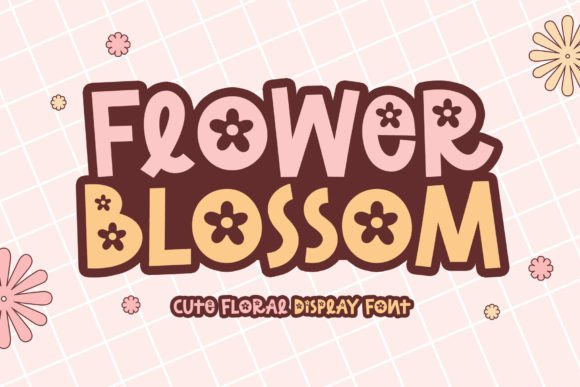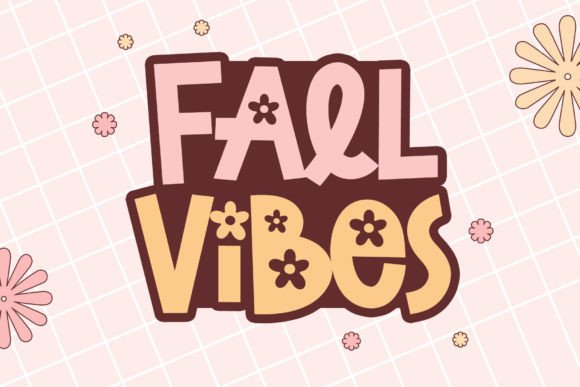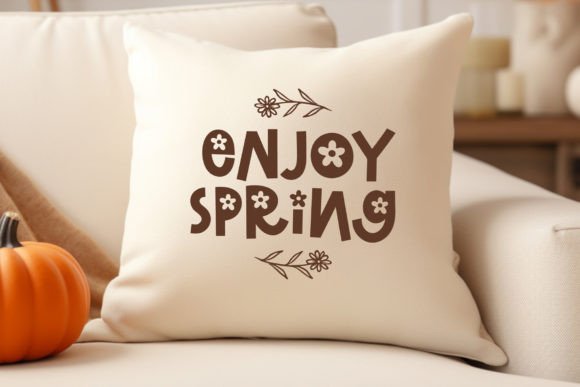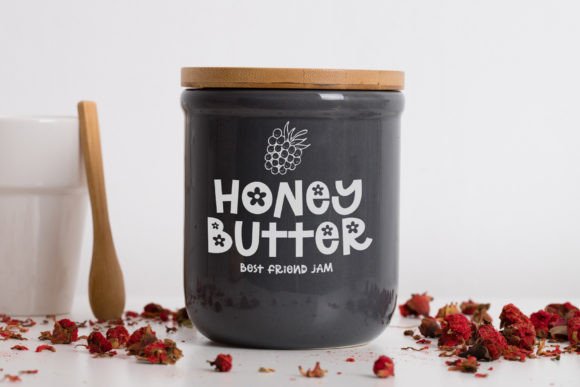
Flower Blossom Font: A Cute Floral Display Font for Cricut & DIY
About the Flower Blossom Font
Welcome to the world of Flower Blossom Font, a typeface that will inspire your next great project. Flower Blossom is pretty display font with floral accent.
This font is pretty font for design with cute style, such as holiday, summer, fall vibes, back to school, t-shirt design, crafting, sticker, and many more.
Flower Blossom’s playful, slightly whimsical personality makes it ideal for headlines, short bursts of text in branding materials, packaging for products targeting a young or female demographic, and social media graphics. It excels in projects that need a touch of charming femininity and are visually lighthearted. Avoid using it for body text or lengthy paragraphs; its decorative nature reduces readability at smaller sizes.
Consider pairing Flower Blossom with a clean sans-serif like Open Sans for contrast and readability in layouts that include both display and body copy. For a more elegant feel, a delicate serif like Lora would provide a balanced sophistication. A playful script font like Pacifico could enhance the overall fun and whimsical effect in certain branding applications.
Flower Blossom is best suited for brands focused on fashion, beauty, lifestyle, or children’s products where a touch of delicate charm is desired. Its decorative style may not be appropriate for projects that require a serious or corporate aesthetic.
Flower Blossom Font Usage Examples
Flower Blossom Font Example